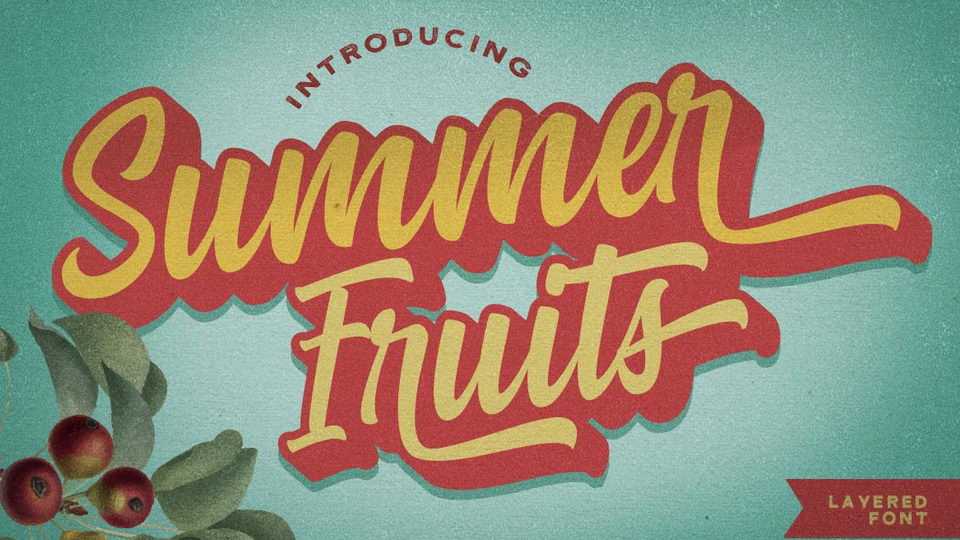
Download Summer Fruits font, a bold vintage script that comes with extrude effect, inspired by retro typography designs style in 70’s. Summer Fruits is perfect for logos, labels, badges, prints and more.